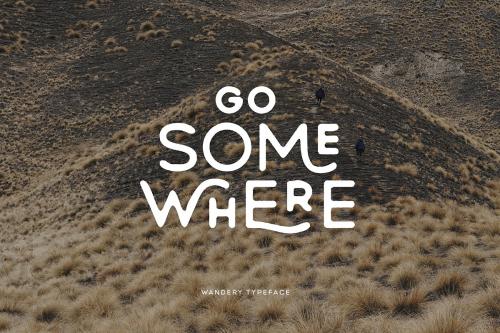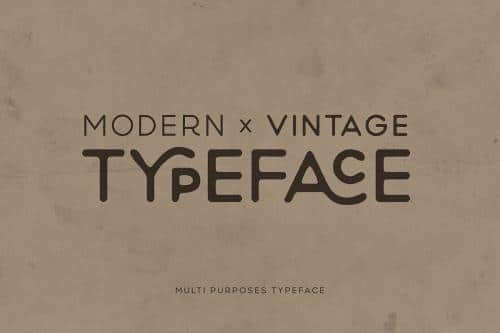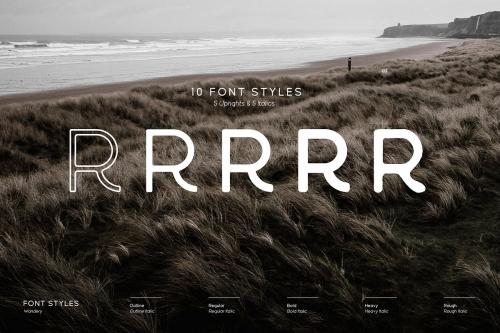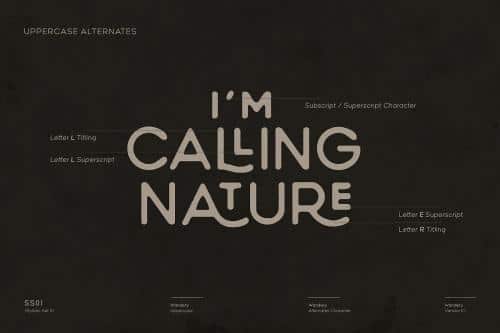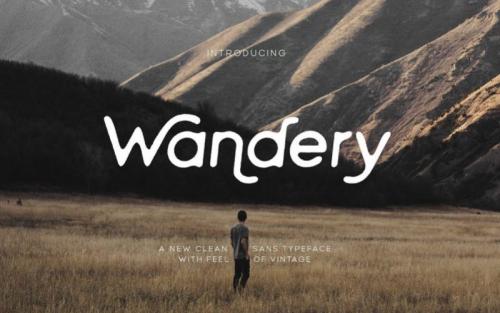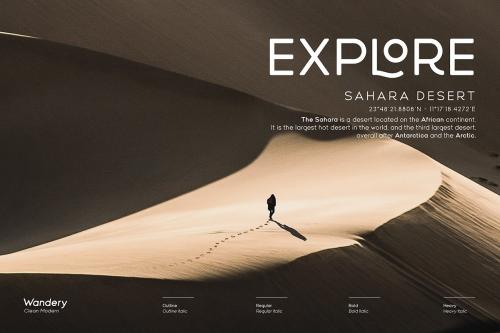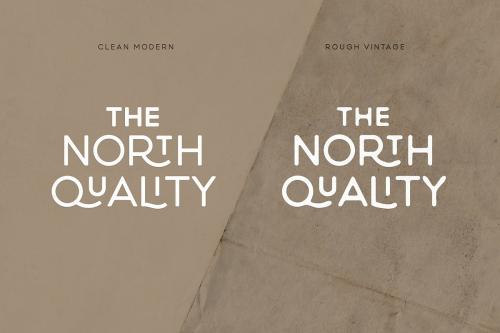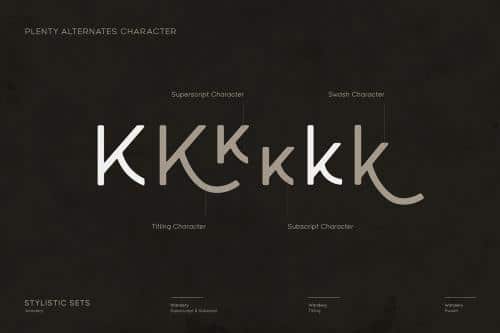
Wandery Modern x Vintage Typeface
Wandery Sans Serif Font
Wandery is the font that I try to combine Modern with Vintage style. The font itself inspired by my best selling font Minimalust Typeface and but this font is more elegant, clean, also have many variations and options.
Wandery have smooth rounded edges and many alternates so the font gives a feel of clean, unique, modern and elegant. The font come with 5 weight plus 5 matching italic. It is equiped with opentype features like alternatives glyphs, ligatures, stylistic sets, titlings, swashes, subscripts, superscripts, numerals and many more.